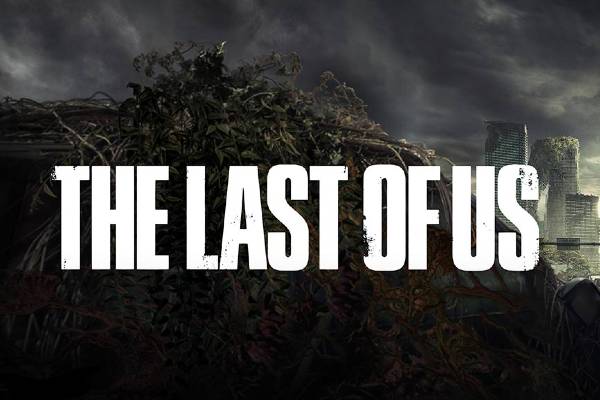
The Last of Us television series is a dark post-apocalyptic drama, based on the critically acclaimed video game, which follows the perilous journey of Joel and Ellie across a United States ravaged by a fungal pandemic. The duo navigates treacherous landscapes and hostile survivors, from the dilapidated buildings of Boston to overgrown Seattle, creating an atmosphere thick with despair and cautious hope. The tension-filled setting serves as a haunting backdrop for a story centered around survival and human connection.
In terms of its visual identity, I would describe “The Last Of Us” logo as employing a rugged, distressed aesthetic that mirrors the series’ bleak atmosphere. What I like most about this font is that with a palette primarily consisting of earthy, muted tones, the lettering has an aged, worn-in look. This specific typographic style is replicated almost exactly by the font Press Gothic which was designed by font author Canada Type. There’s also another close match called “The Last Of Us Rough” font which closely captures the essence of the original series logo. Both of these fonts encapsulate the series’ somber mood through their well-crafted glyphs and font-families, offering fans and designers alike authentic alternatives for their projects. You can grab these fonts to use in your own designs by clicking on the download button below.